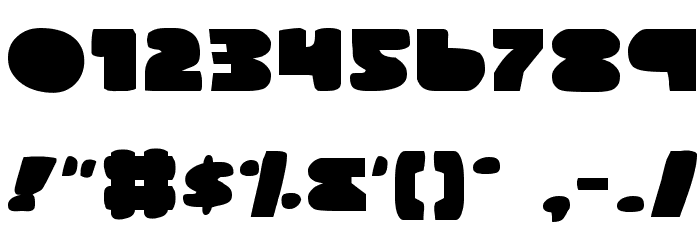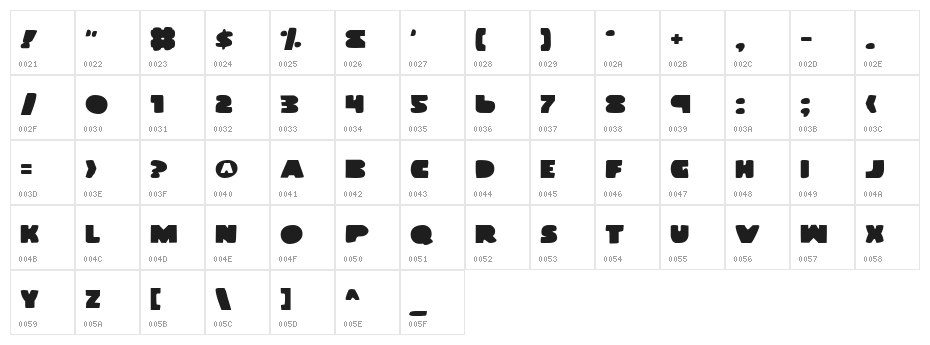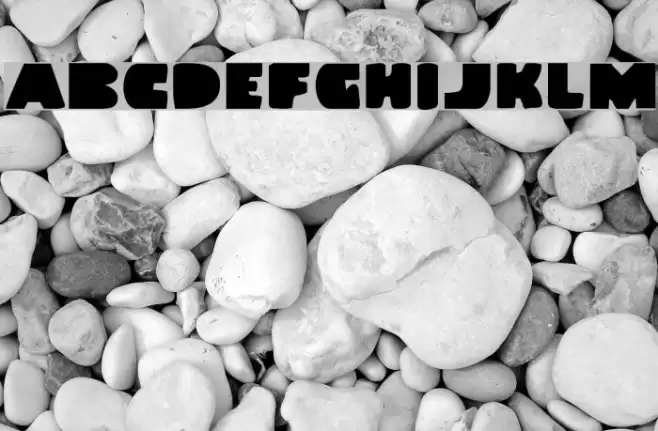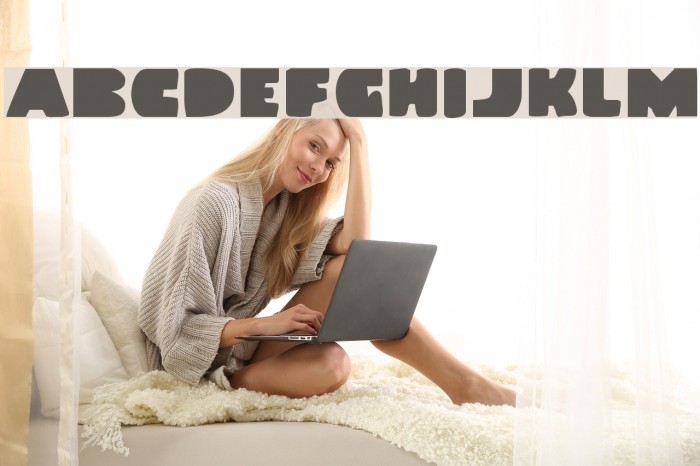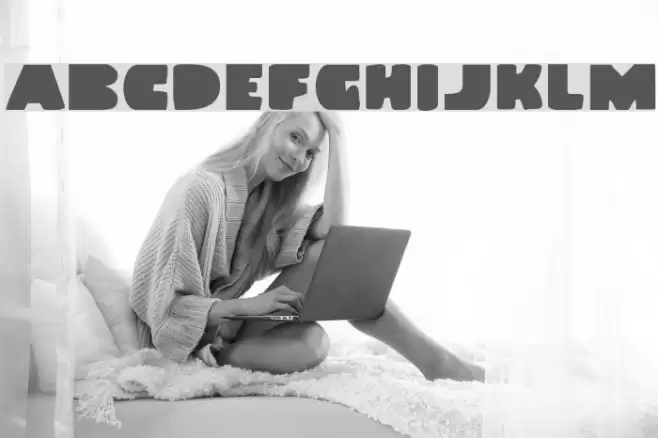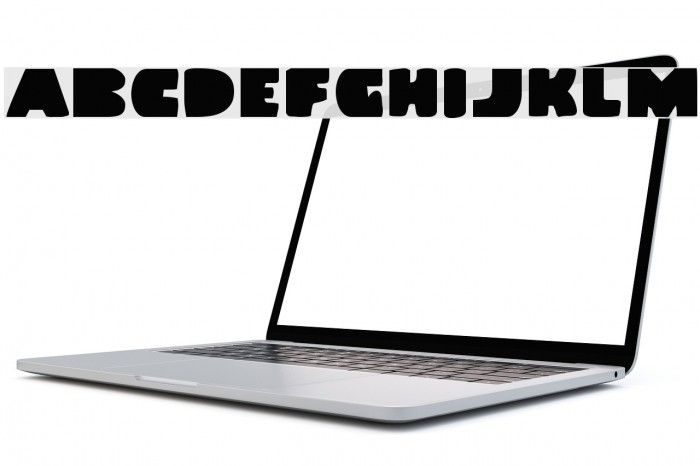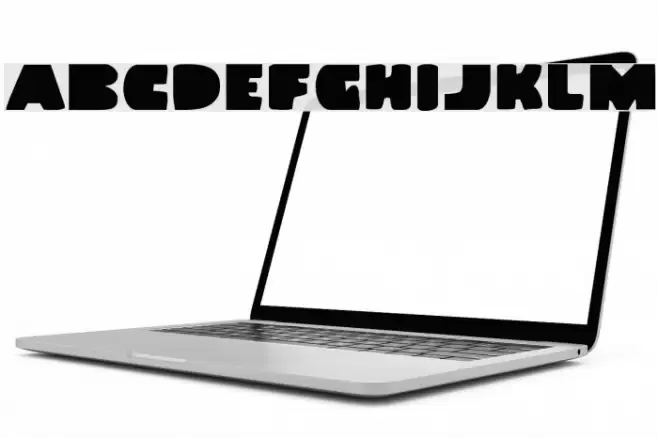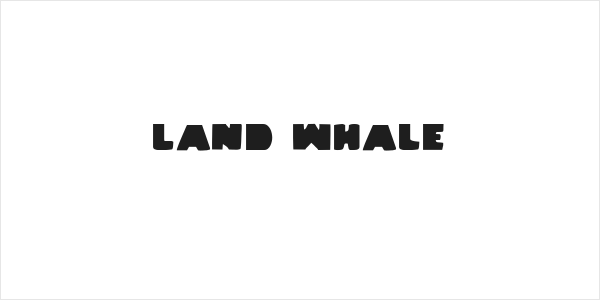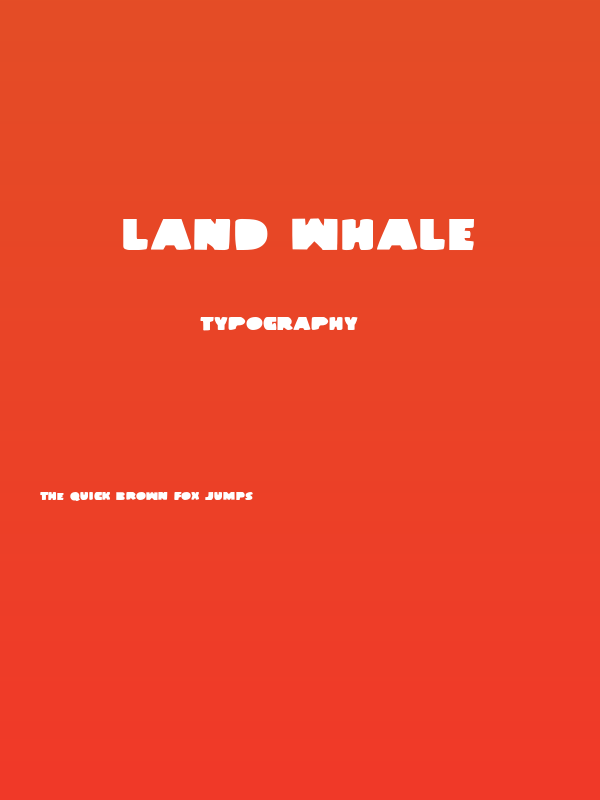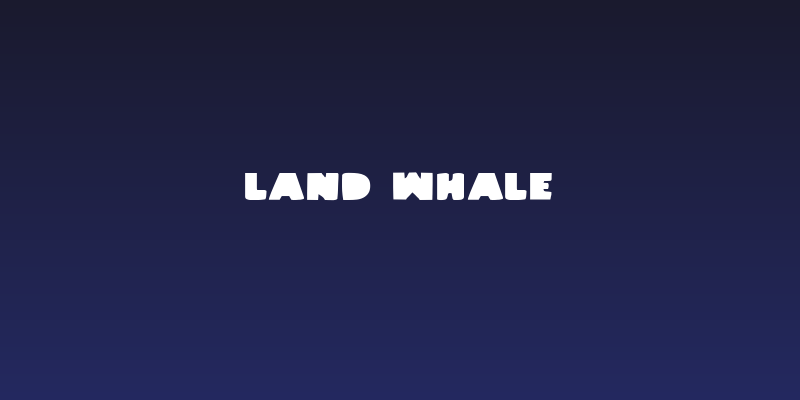
Land Whale Font
Land Whale Description
This bold and playful font features thick, rounded characters that convey a sense of fun and whimsy. The letters are heavily weighted, with a consistent thickness throughout, giving them a strong presence. The rounded edges and lack of sharp angles contribute to a friendly and approachable aesthetic. The font includes a full set of uppercase and lowercase letters, numbers, and a variety of special characters, making it versatile for different design needs. Its unique style is eye-catching and memorable, ideal for projects that require a bold statement.
| Overall Style | Playful, Fun, Bold |
| Proposed Projects | Perfect for children's books, playful branding, posters, and any project needing a fun, bold typeface. |